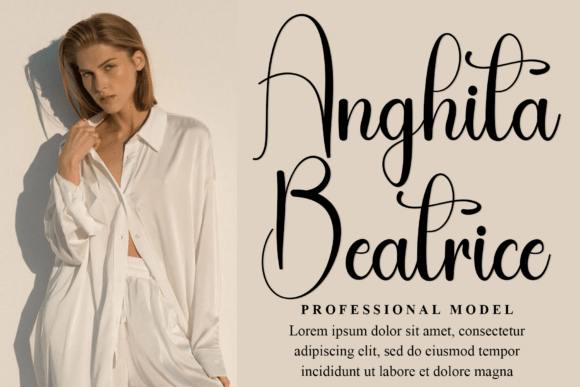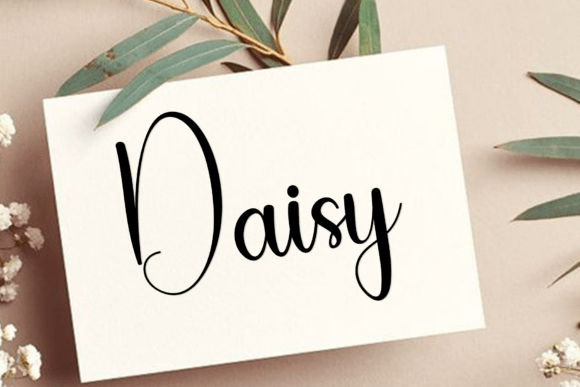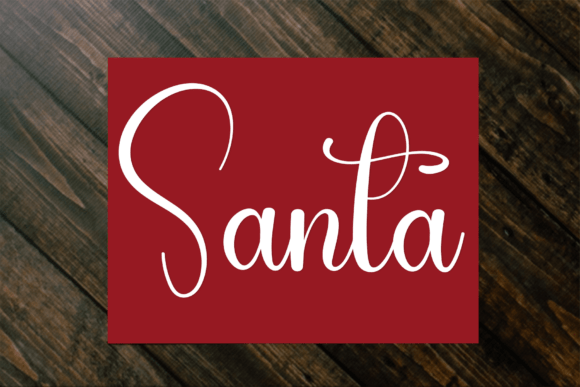
Introduction to Girls Dream Font
Have you ever been brainstorming ideas for a holiday project and suddenly, the perfect font pops into your head? For designers, this moment is music to our ears. It’s the spark that ignites our creativity and sets our imagination ablaze. For me, that font was Girls Dream Font, a festive and merry typeface that captures the essence of the holiday season. Its whimsical flair and decorative elements add a touch of enchantment to any design, making it perfect for greeting cards, gift tags, and holiday-themed projects.
As a valuable design resource, Girls Dream Font is a game-changer for any creative project. With its PUA encoding, you can access all the amazing glyphs and ligatures with ease, making it a high-quality addition to your design arsenal. Whether you’re working on a free download or a paid project, this font brings a cheerful and nostalgic ambiance to your words, making it a must-have for any designer looking to add a touch of magic to their designs.
Key Features of Girls Dream Font
- High-quality, cursive script font perfect for creative projects
- Designed with a delicate, whimsical touch, making it suitable for girls’ themes, feminine designs, and more
Honest Review: Girls Dream Font
I recently had the chance to work with the Girls Dream Font, and I must say it’s been a game-changer for my design projects. The high-quality design resource offers a range of creative possibilities.
- ✨ The font’s transparent background makes it easy to overlay on images or videos.
- ✨ The variety of styles and designs within the font make it versatile for different creative projects.
- ⚠️ Some users may find the font’s design a bit too cutesy for certain projects.
Overall, I’m impressed with the Girls Dream Font and would highly recommend it to designers looking for a high-quality, free design resource for their creative projects.
To get the most out of the Girls Dream Font, experiment with different font sizes, colors, and styles to create a unique and eye-catching design. You can also combine the font with other design elements, such as images and shapes, to create a visually appealing design.